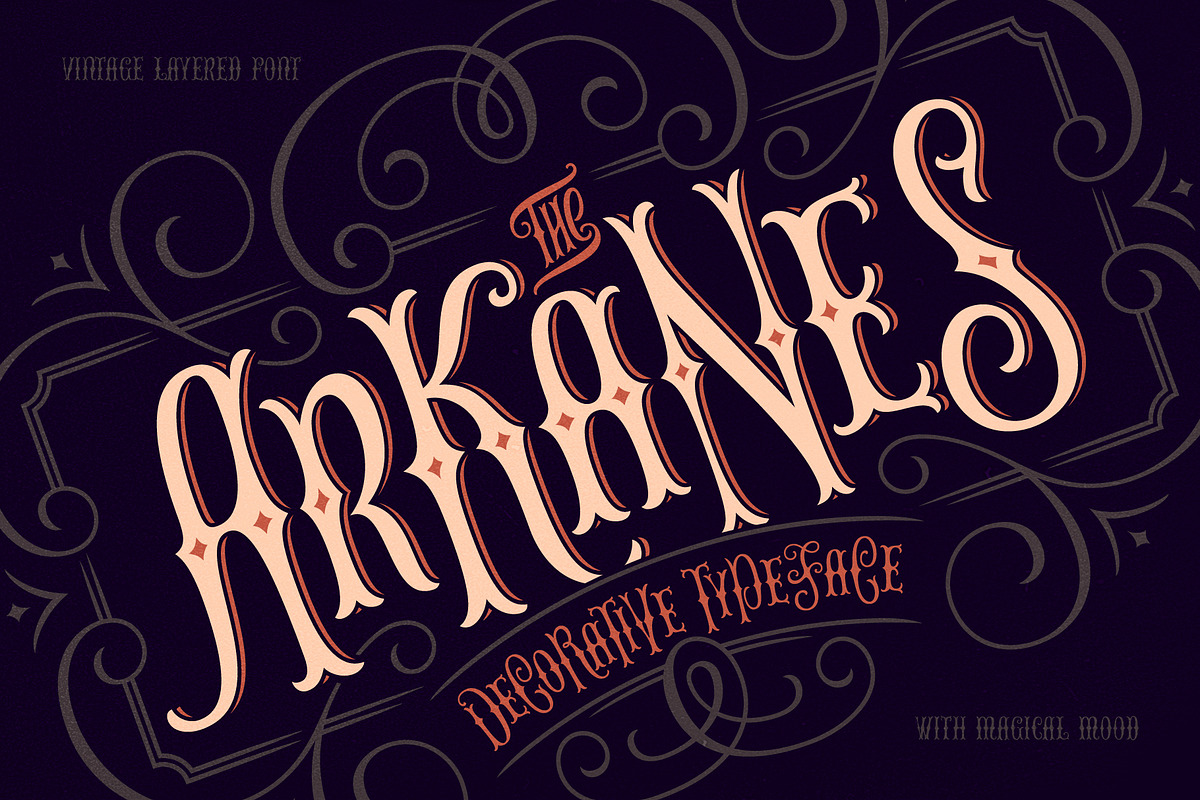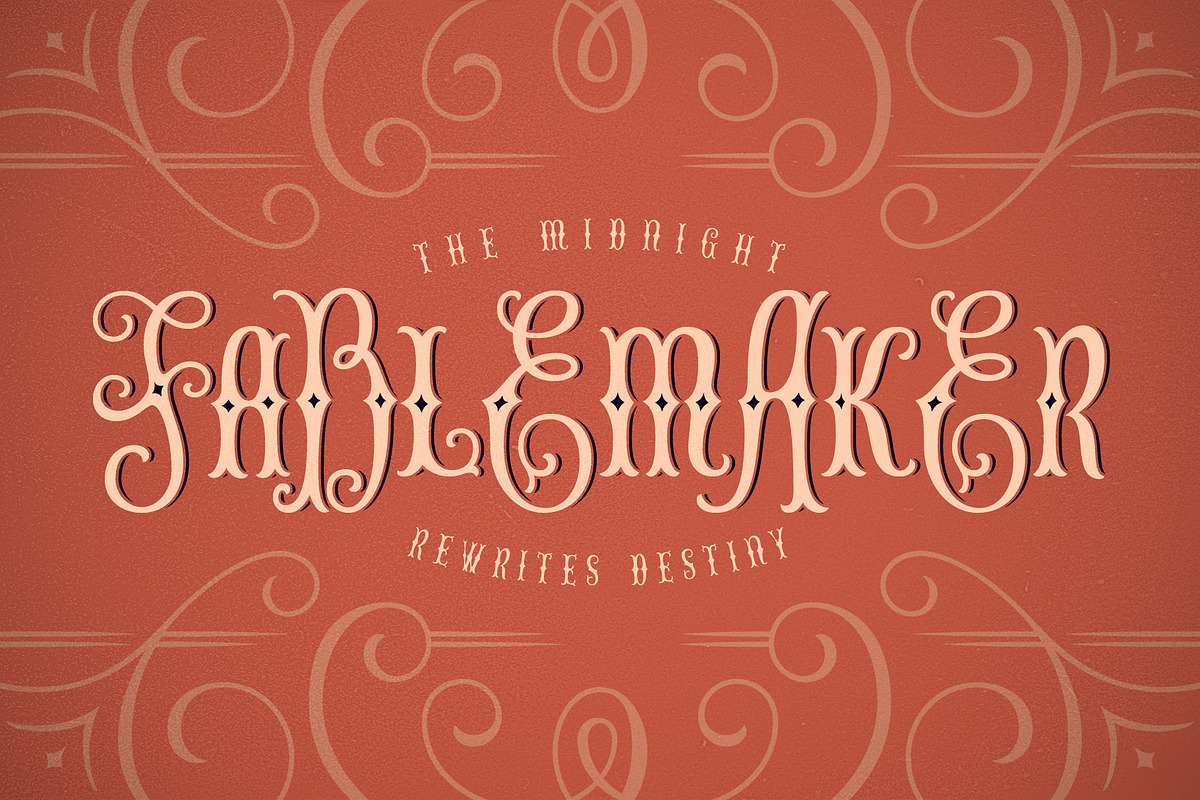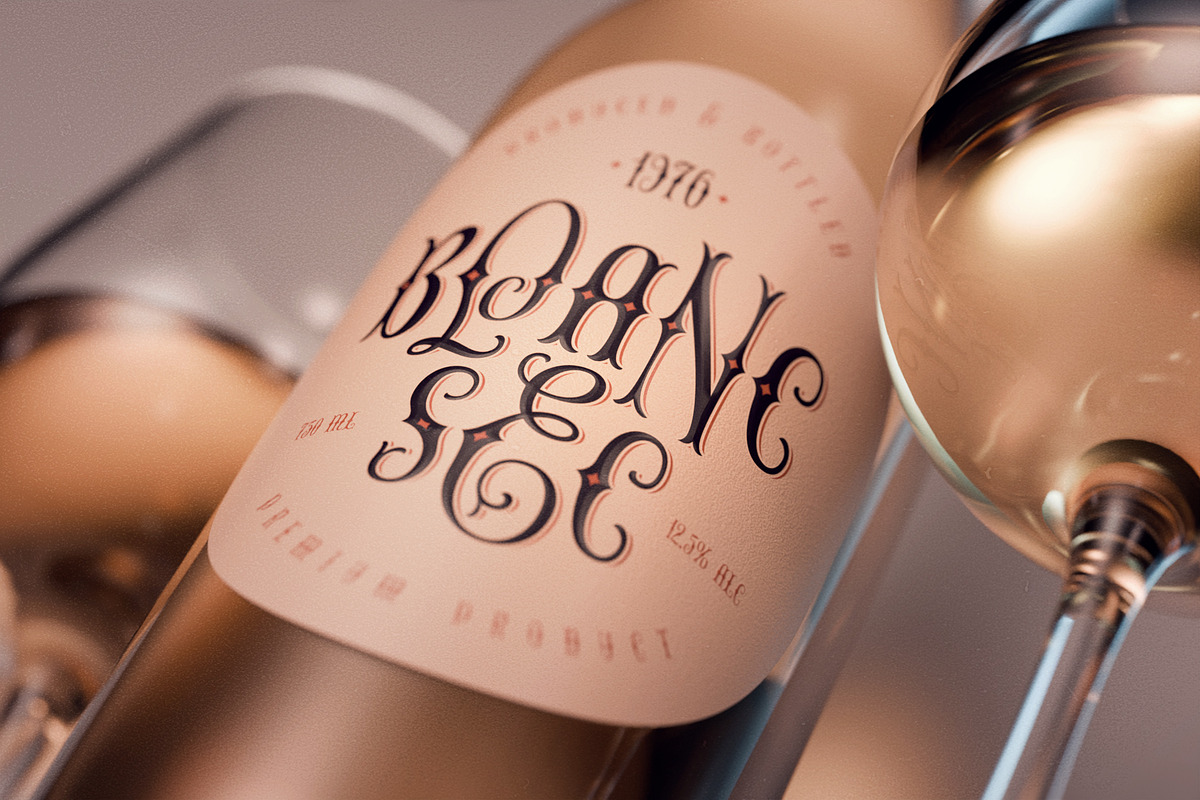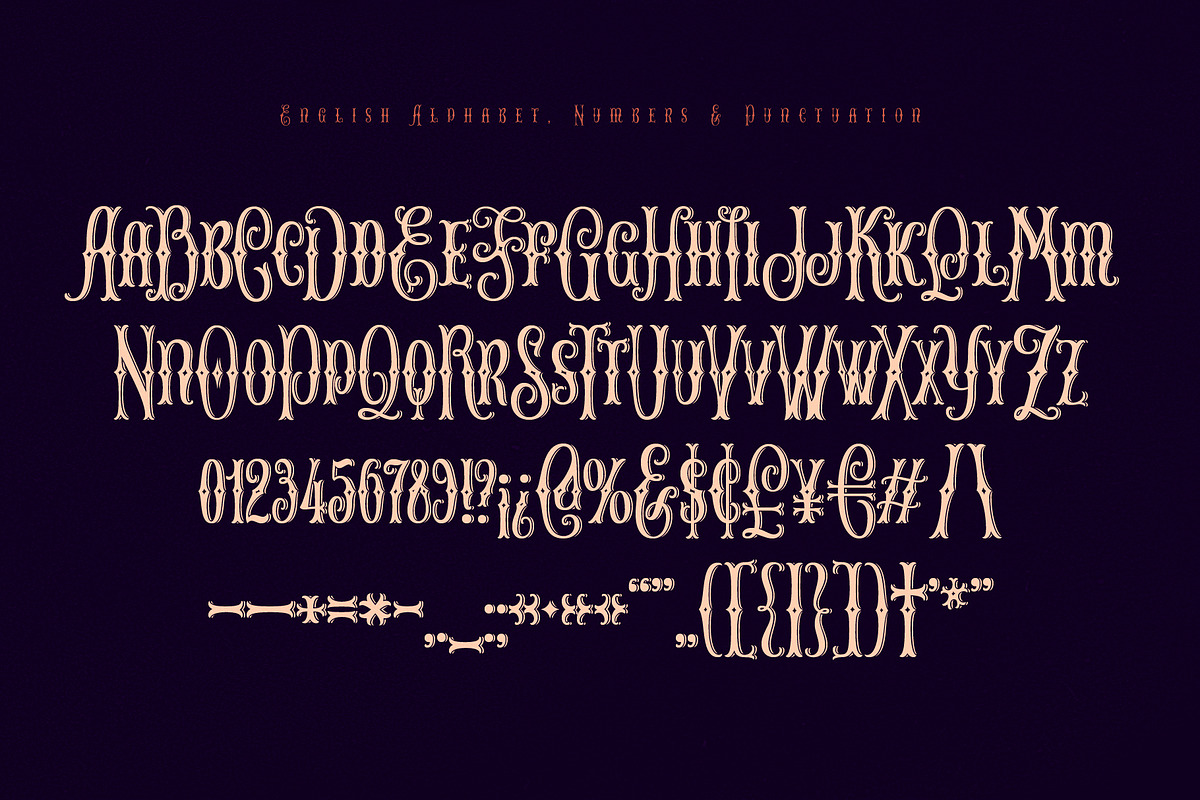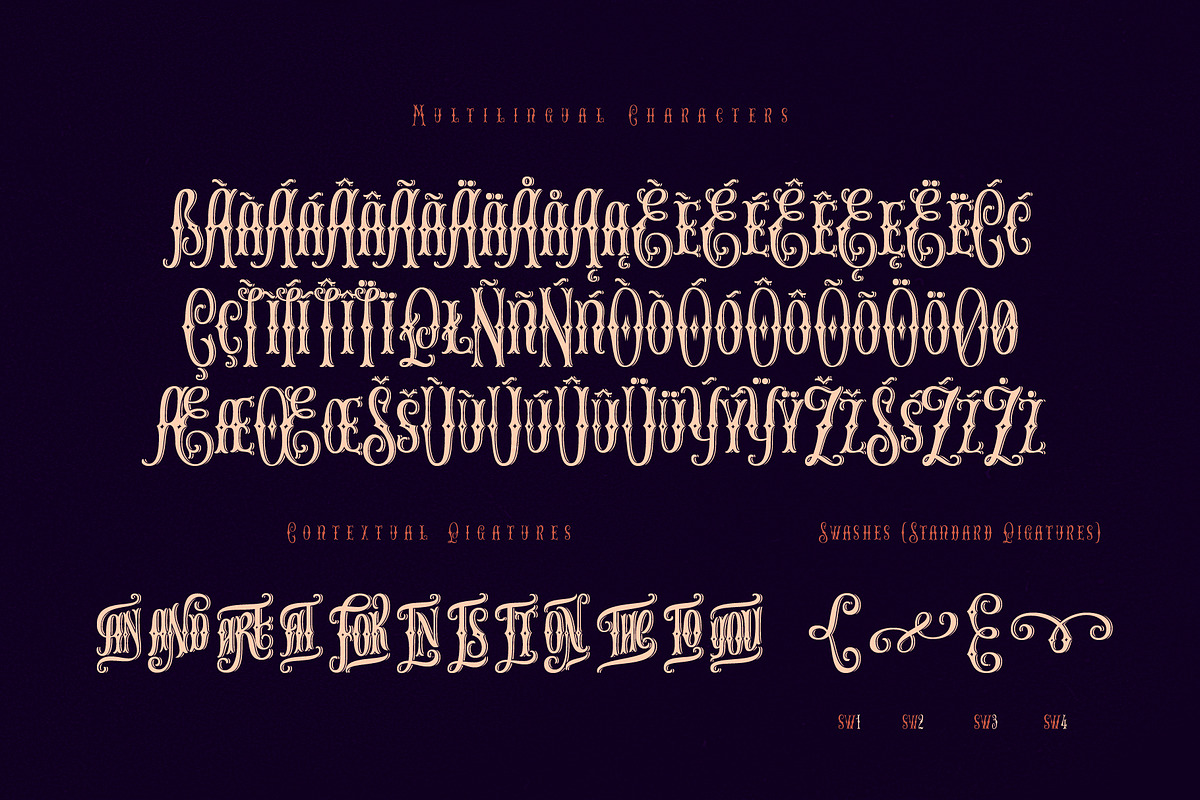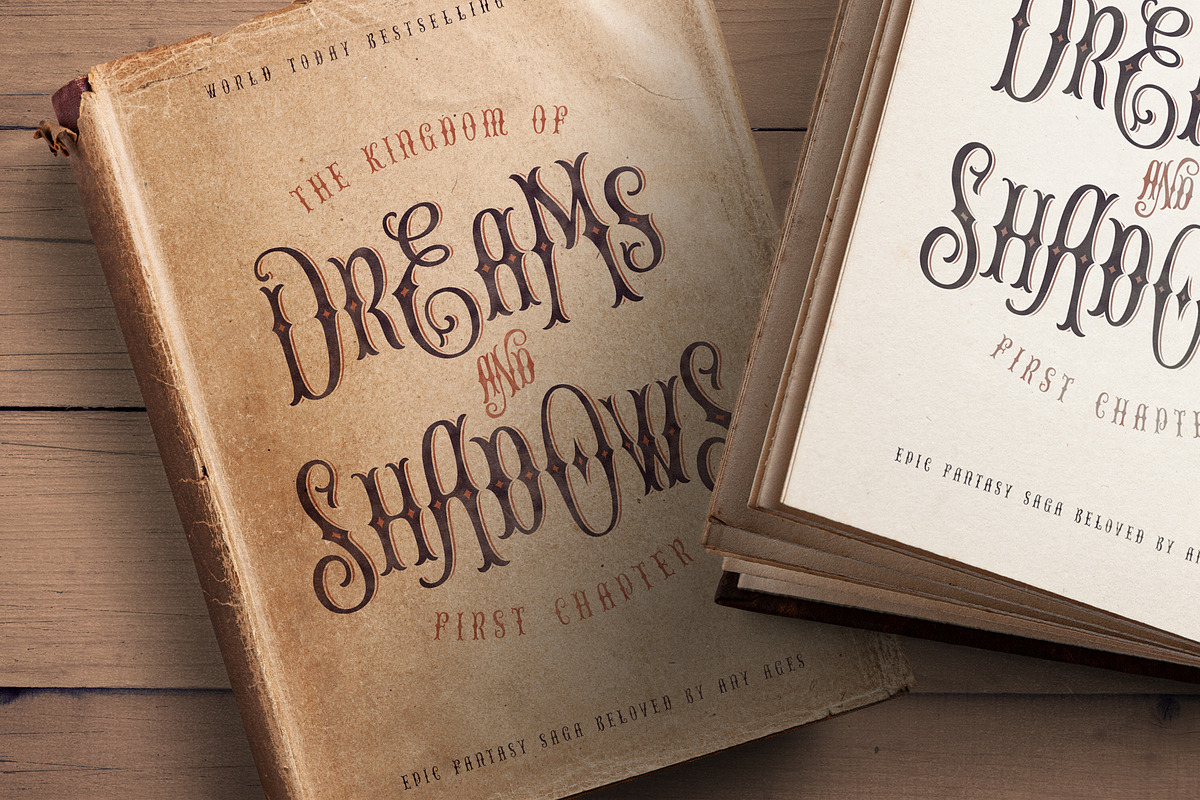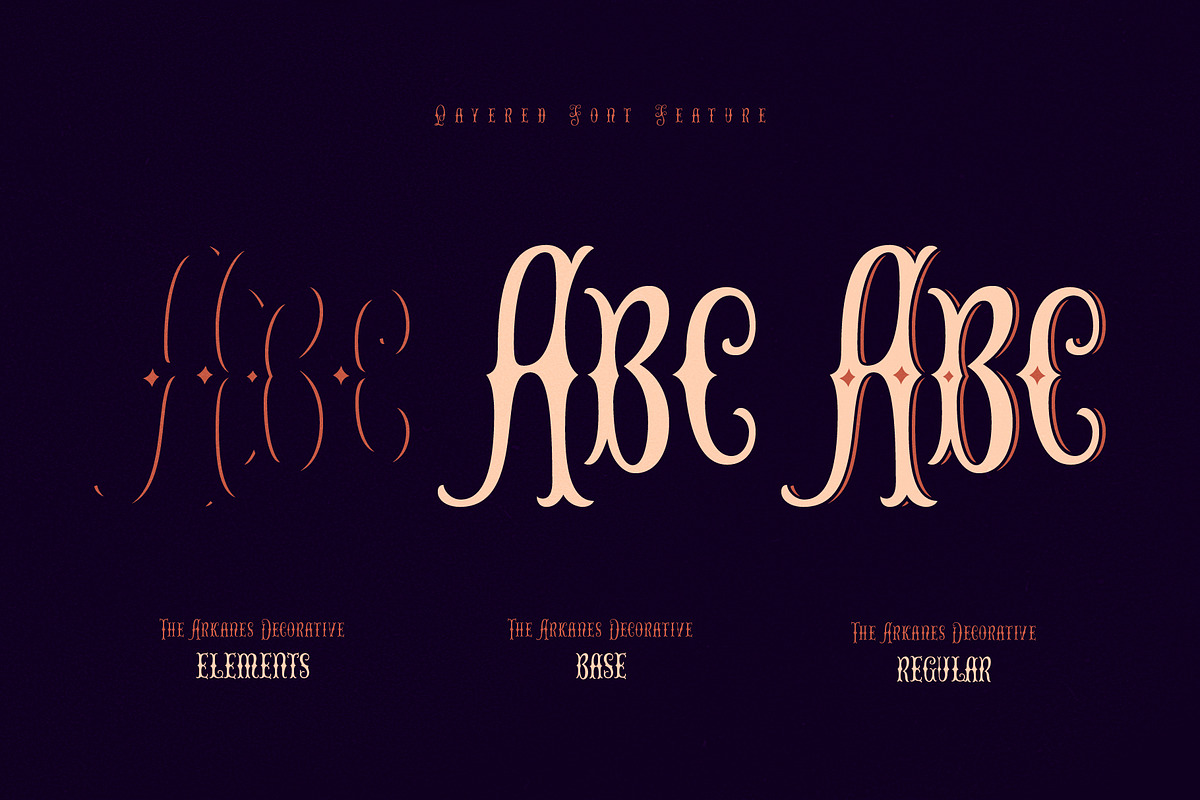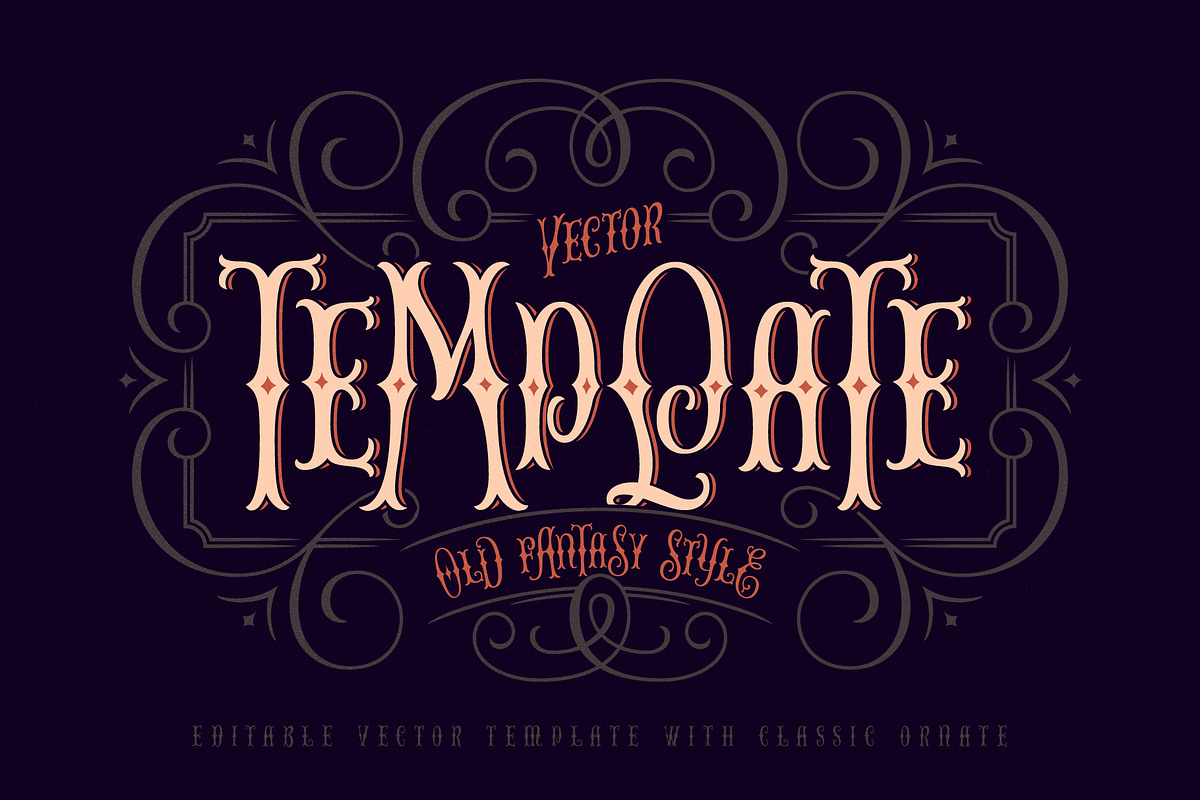
The Arkanes Decorative
Introducing the Arkanes Decorative Typeface, a fantasy-style font designed with a magical aura and smooth, vintage contours. It is an ideal choice for seasonal projects and mystical typography. Using layered feature, you can effortlessly recolor the decorative accents within its symbols.
An OpenType feature will automatically change the case for every next letter. Please make sure that the Contextual Alternates feature is supported and enabled in your software. Another OpenType feature is Discretionary Ligatures, which gives you access to 12 uniquely composed extra characters. Also, four swash glyphs are available, released via the Standard Ligatures feature — just type 'sw1', 'sw2', 'sw3', or 'sw4', and a curly, ornate symbol will appear.
This font contains 235 glyphs and supports multiple languages — check the screenshot to view the full character set.